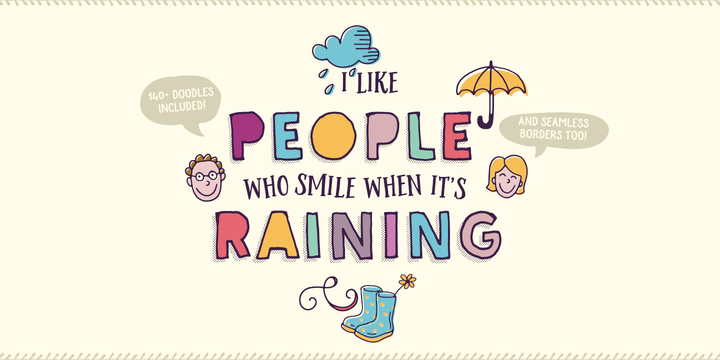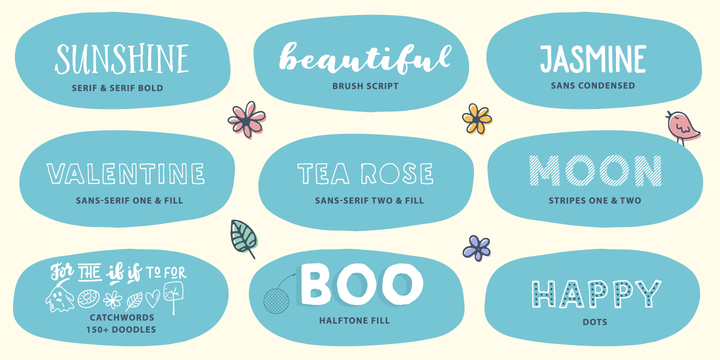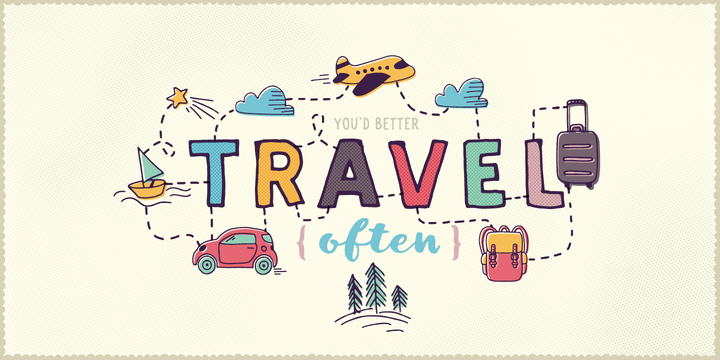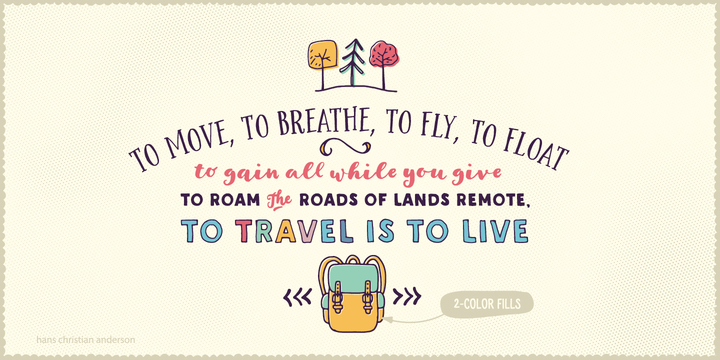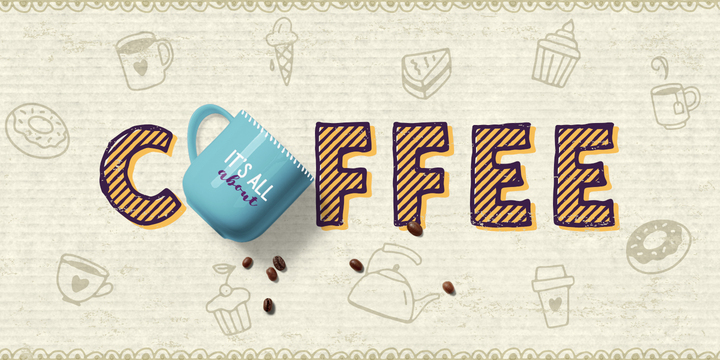
Sunshine Daisies Font Family
Sunshine Daisies Hand Lettered collection brings 15 handwritten fonts infused with fun and sunshine. All of them, including sans serif layered font, can be combined in many ways. The script is full of alternates and the layered font has a pseudorandom function embedded that means two letters will never look the same when placed next to each other.